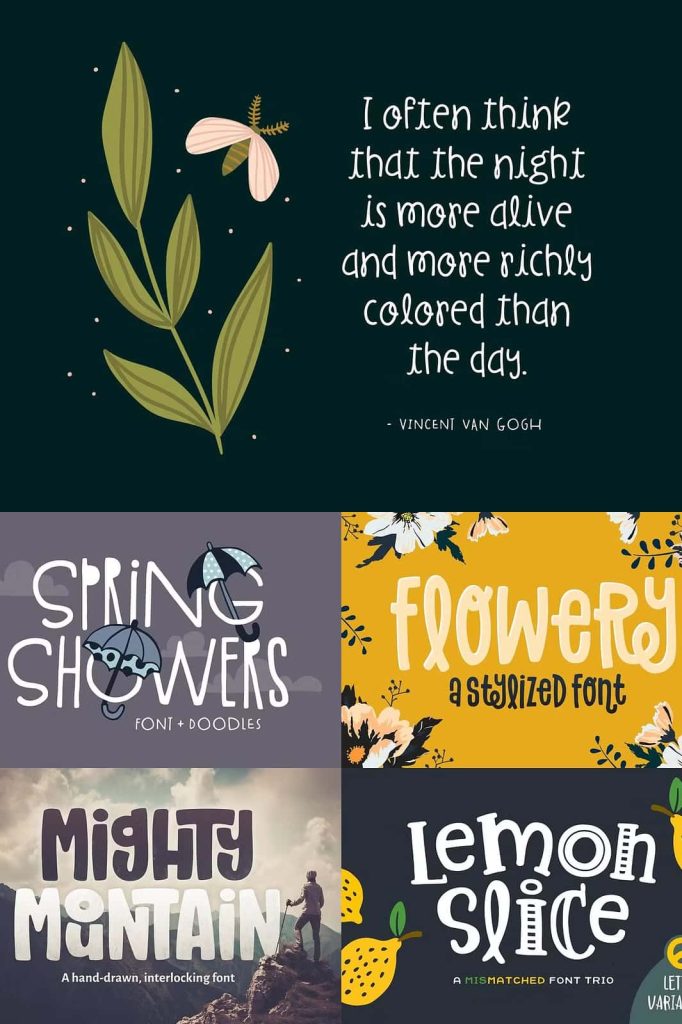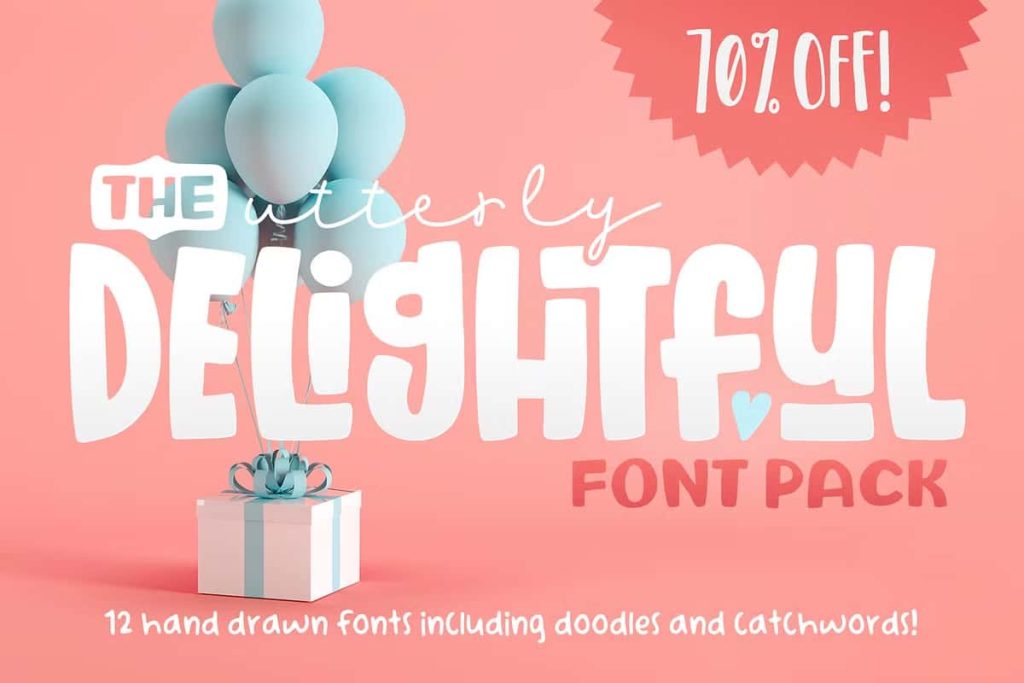
The Utterly Delightful Font Pack: 12 Hand-Drawn Fonts for Creative Freedom
The Utterly Delightful Font Pack brings together 12 unique hand-drawn fonts in one versatile and value-packed collection. Designed for creatives who want to add personality and charm to their work, this bundle delivers expressive typography that feels authentic, playful, and full of life. Each font carries its own distinct style, allowing you to explore a wide range of creative directions without switching between multiple resources.
This font pack goes beyond simple lettering. It also includes a set of doodles and catchwords that complement the fonts perfectly. These additional elements help you create cohesive and engaging designs faster, making the entire package an essential toolkit for designers, illustrators, and content creators.
12 Unique Hand-Drawn Fonts with Distinct Character
Every font in this collection has been carefully crafted by hand, ensuring that no two styles feel the same. From playful scripts to bold display styles, the pack offers a diverse range of options that can adapt to different themes and moods. This variety allows you to experiment freely and build designs that feel original and expressive.
The hand-drawn nature of these fonts introduces natural imperfections that enhance authenticity. These subtle details make your typography feel more human and less mechanical, helping your designs stand out in a crowded visual landscape.
What Makes These Fonts Special
- 12 distinct hand-drawn font styles
- Authentic textures and organic imperfections
- Versatile designs for multiple creative needs
- Consistent quality across the entire collection
Bonus Doodles and Catchwords for Added Creativity
In addition to the fonts, this pack includes a selection of doodles and catchwords that enhance your design possibilities. These elements are designed to work seamlessly with the fonts, allowing you to build visually rich compositions without needing extra graphic assets.
The doodles add a playful and artistic touch, while the catchwords help emphasize key messages in your designs. Together, they create a complete creative system that supports both typography and visual storytelling.
Included Extras
- Hand-drawn doodles for decorative use
- Catchwords for emphasis and style
- Ready-to-use elements for faster workflows
- Perfect integration with all included fonts
Perfect for Branding, Social Media, and Creative Projects
This font pack works exceptionally well across a wide range of design applications. Whether you are building a brand identity, creating social media content, or designing print materials, these fonts provide the flexibility you need. Their expressive style helps you communicate personality and emotion effectively.
You can use these fonts to create logos, posters, packaging, and more. The variety within the pack ensures that you always have the right style for your project, whether you need something bold, playful, or elegant.
Popular Use Cases
- Logo design and branding projects
- Social media graphics and content
- Posters, flyers, and print materials
- Creative portfolios and presentations
Bring Personality and Fun into Your Designs
The Utterly Delightful Font Pack empowers you to create designs that feel lively, engaging, and full of character. Its hand-drawn approach introduces warmth and authenticity, making your work more relatable and visually appealing. The included doodles and catchwords further enhance your ability to tell stories through design.
Whether you are working on a personal project or a professional assignment, this font pack provides the tools you need to express your creativity with confidence. It transforms simple typography into a dynamic and enjoyable visual experience.
Why Choose This Font Pack
- Diverse collection of hand-drawn fonts
- Bonus elements for enhanced creativity
- Excellent value with significant savings
- Suitable for both beginners and professionals
Create Without Limits
With The Utterly Delightful Font Pack, you gain access to a complete set of creative tools designed to inspire and support your work. Its combination of unique fonts, playful doodles, and expressive catchwords allows you to explore new ideas and push your designs further.
Choose this font pack when you want to add energy, personality, and versatility to your projects. It gives you everything you need to create bold, memorable, and truly delightful designs.